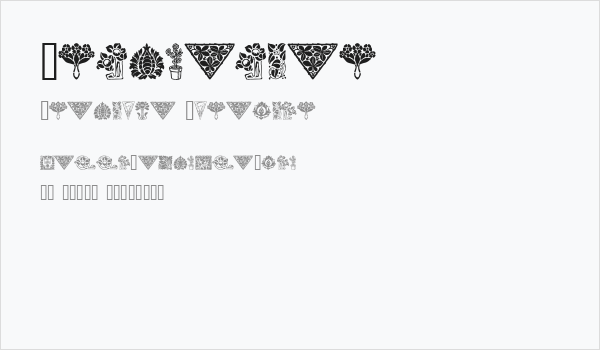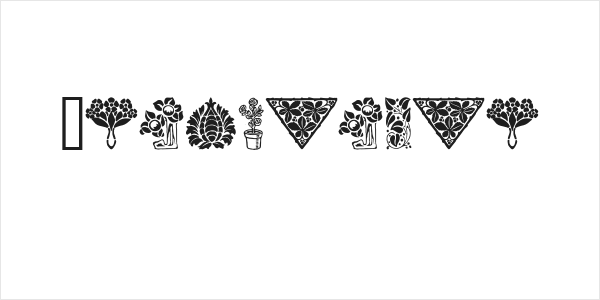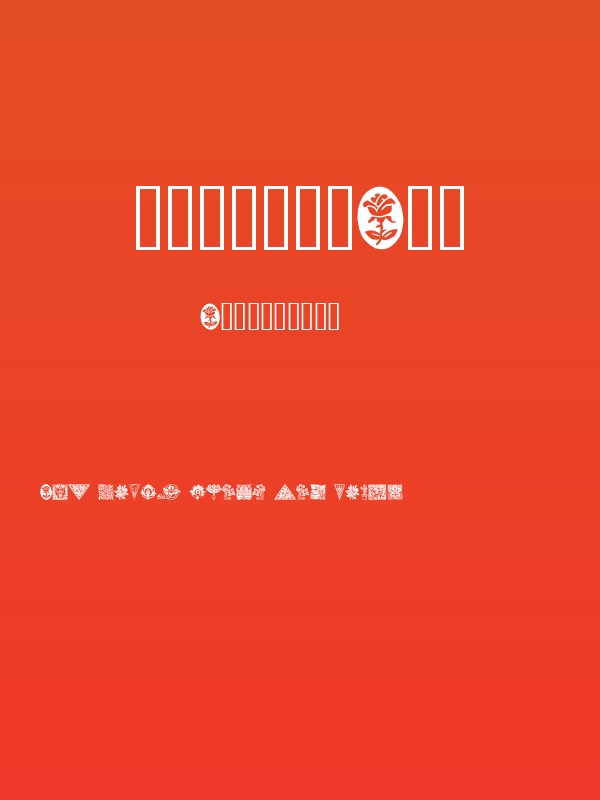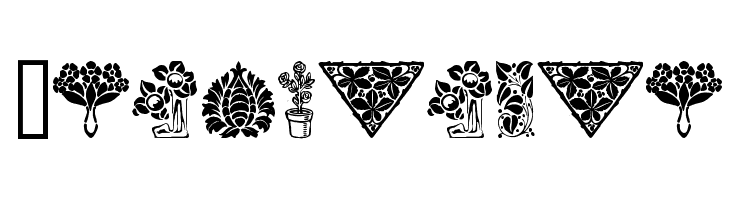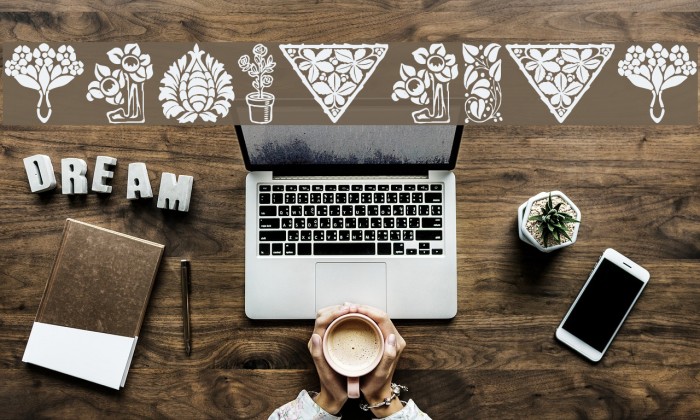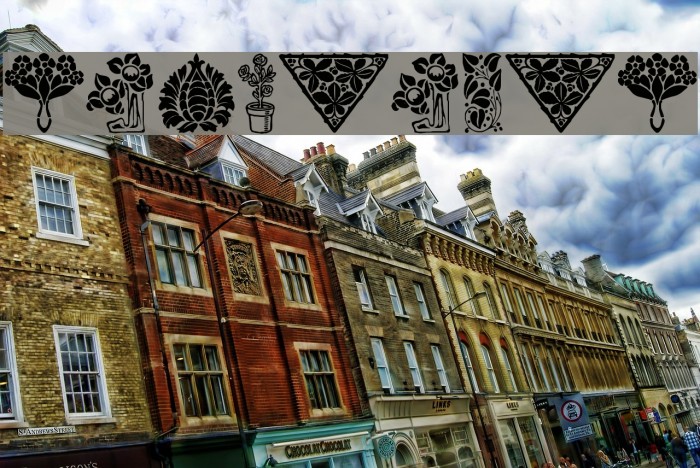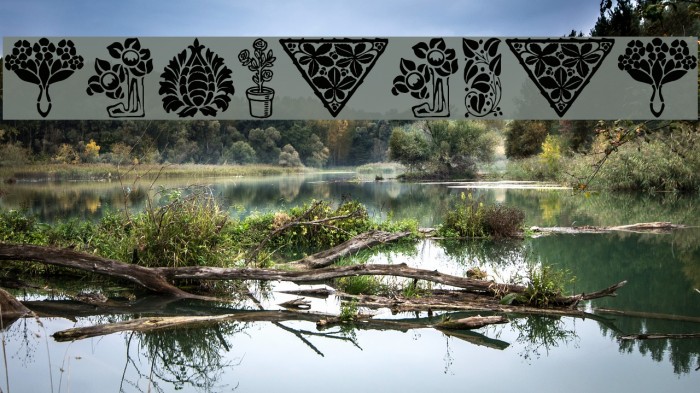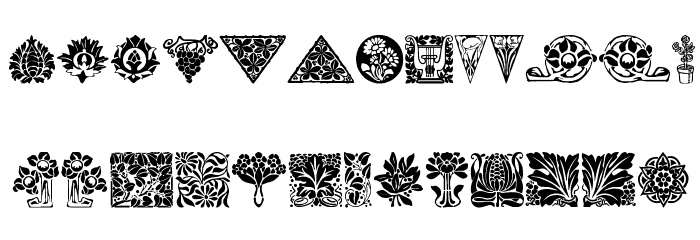
Ornamenter Font
Ornamenter Description
A decorative dingbat set featuring intricate floral, botanical, and ornamental motifs, with a mix of symmetrical and asymmetrical designs. The glyphs include various stylized flowers, leaves, geometric shapes, and ornamental flourishes, rendered in bold black and white for high contrast and visual impact.
| Overall Style | Vintage, Decorative |
| Use Case | Ornamental accents, dividers, embellishments, logos, decorative elements. |
| Proposed Projects | Book covers, invitations, certificates, decorative borders, vintage-themed designs, branding, packaging. |